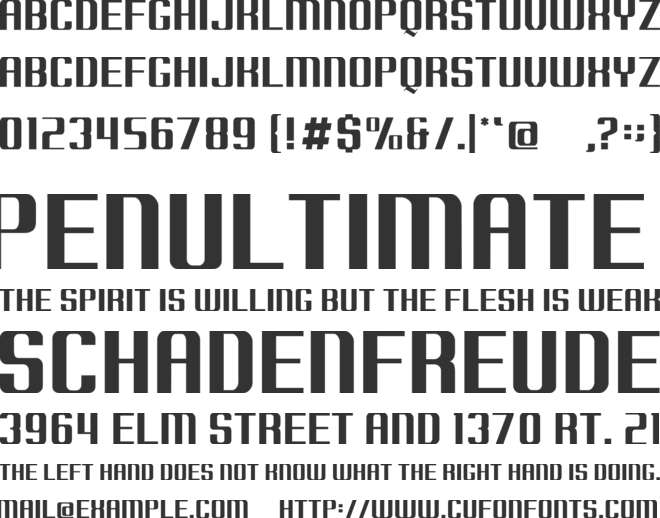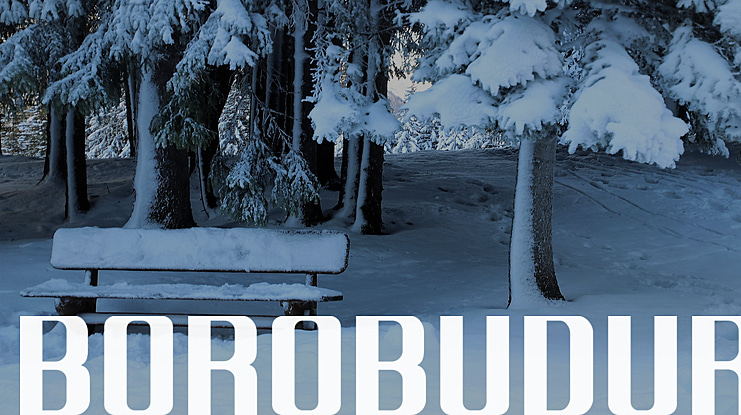
Borobudur Font
Hantodiningrat
Proudly present my second font experimental project, name Borobudur. It was inspired by 7 wonder of the world. You can use it for personal use only. But, if you wanna use it for commercial purpose, feel free to contact me at .